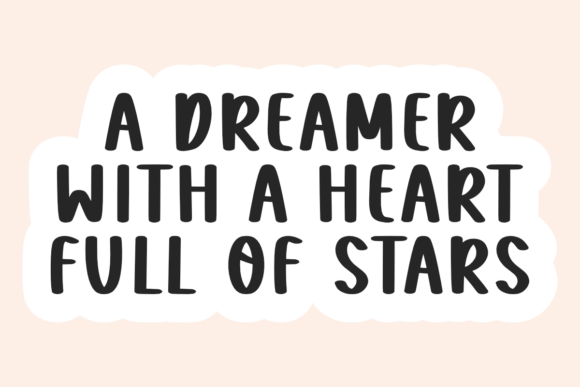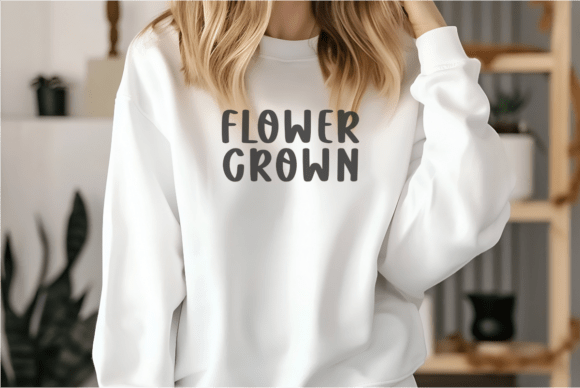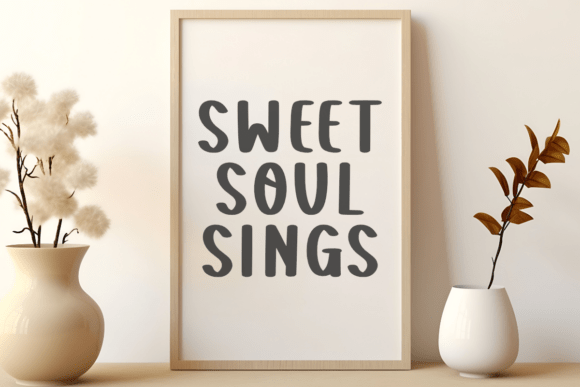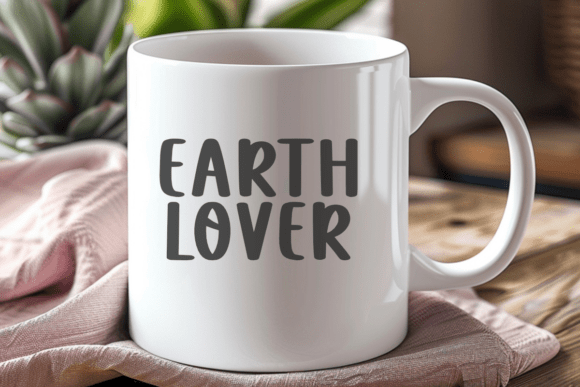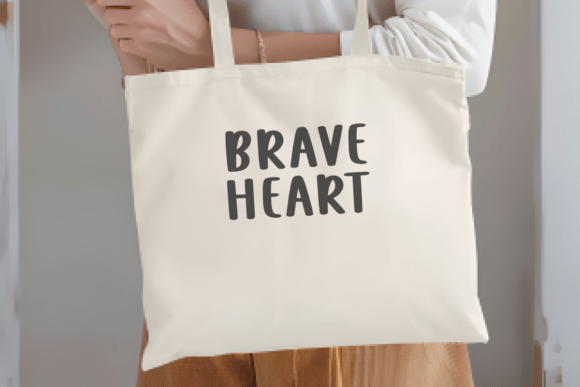
The Boho Child Font: A Modern Bohemian Dream Come True
I’ll never forget the design project that led me to discover the Boho Child font. I was working on a branding project for a kids’ fashion label, and I was struggling to find the perfect font that captured the playful, laid-back vibe of the brand. That’s when I stumbled upon Boho Child, and it was love at first sight! 💕
This bold and fun display font has a modern bohemian twist that immediately resonated with me. The tall, rounded letters and touch of quirkiness made it perfect for the project. I knew right then and there that I had to share my excitement with fellow designers and creative hobbyists.
• ✅ Unique and eye-catching design that’s perfect for branding, kids’ fashion labels, playful posters, and DIY projects
• ✅ Tall, rounded letters that add a touch of whimsy and fun
• ✅ Modern bohemian vibe that’s perfect for creative projects
• ✅ Easy to read and understand, even in large blocks of text
• ⚠️ Limited use in formal or traditional designs, as it may come across as too playful
• ⚠️ May not be the best choice for body text, as it’s a display font designed for headlines and titles
The Designer Inspiration Behind Boho Child
The Boho Child font was designed with the modern bohemian lifestyle in mind. The designer wanted to create a font that captured the free-spirited, creative vibe of the bohemian movement, while still being easy to read and understand. The result is a font that’s perfect for designers and crafters who want to add a touch of whimsy and fun to their projects.
Q: What is the Boho Child font best used for?
A: Boho Child is best used for branding, kids’ fashion labels, playful posters, and DIY projects.